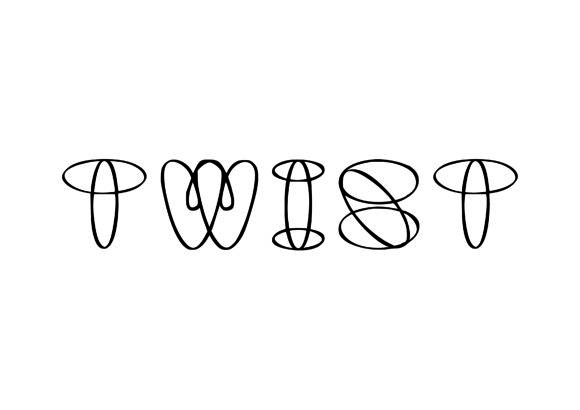
Step into the realm of visual intrigue with Twist Font, a captivating decorative font family that sparks creativity and ignites the imagination. Crafted by the masterful hands at GraphicsBam Fonts, Twist captivates with its playful and experimental spirit, offering a delightful journey through the world of typography.
Immerse yourself in the font's enchanting thin outlines, meticulously crafted to evoke a sense of whimsy and innovation. Twist's unique design dances effortlessly across any canvas, bringing a touch of magic to logos, branding, posters, invitations, and an array of other creative endeavors. Let your imagination soar as you explore the endless possibilities of Twist Font, allowing your designs to exude an aura of originality and charm.
With its graceful curves and playful personality, Twist Font possesses an innate ability to capture attention and leave a lasting impression. Whether you're a seasoned graphic designer seeking to elevate your work or a creative enthusiast eager to make a statement, Twist Font is your perfect companion. Unleash your imagination and let the font's magic transform your designs into captivating visual masterpieces.
So, embark on this extraordinary typographic adventure with Twist Font, the ultimate choice for those seeking to add an element of surprise and delight to their creative projects. Discover the boundless potential of this remarkable font and watch as your designs blossom into captivating works of art.